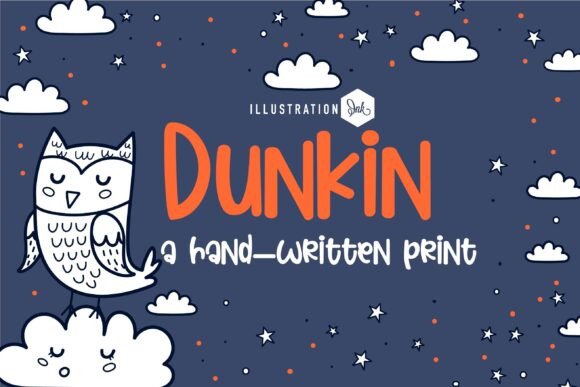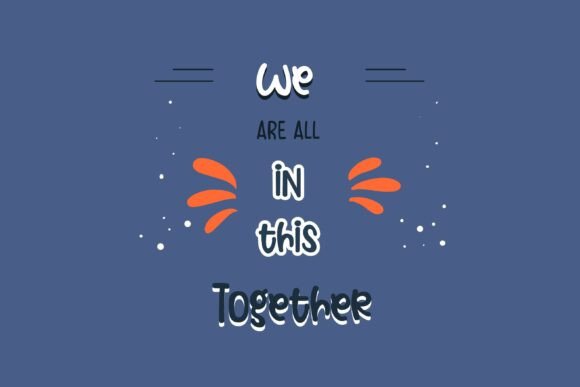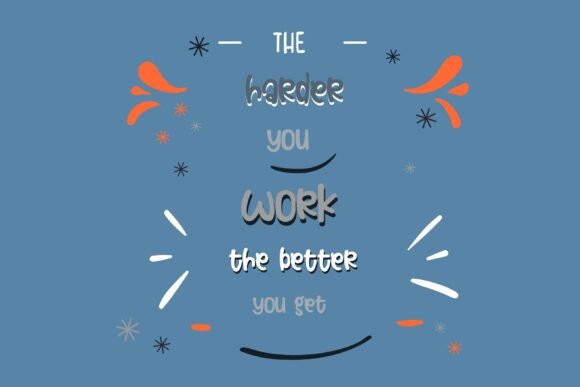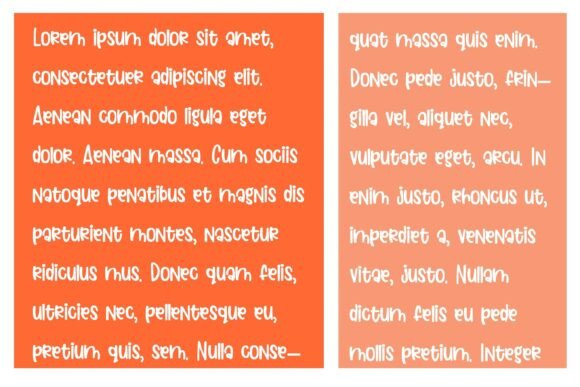
Dunkin Font
About the Dunkin Font
Let us introduce you to Dunkin Font, where timeless design meets modern craftsmanship. This hand-crafted font is a whimsical sans serif with a bit of a youthful feel.
Dunkin Font’s whimsical nature makes it ideal for headlines, short bursts of text in branding materials, and playful packaging designs. It works exceptionally well for projects targeting a younger demographic or those emphasizing fun and approachability. However, its informal style is less suitable for body text, long paragraphs, or applications requiring high readability, such as user interfaces.
Pairing Dunkin Font effectively requires considering its lighthearted personality. A clean sans-serif like Open Sans or Lato would provide a strong, neutral counterpoint for readability in supporting text. For a more sophisticated feel, a classic serif like Garamond or Georgia could add a touch of elegance.
The font’s overall personality is best described as friendly and youthful, conveying a sense of playfulness without being overly childish. This makes it a great choice for brands aiming for a lighthearted and approachable image.
Dunkin Font Usage Examples
Dunkin Font Example